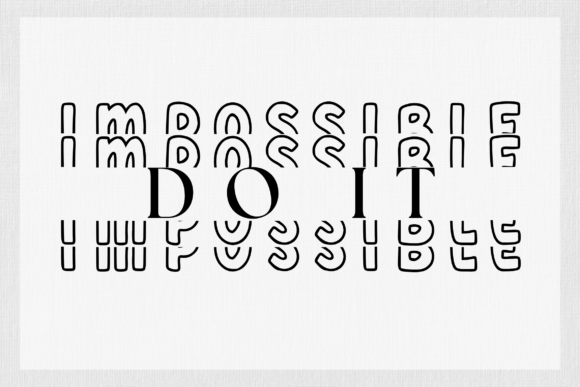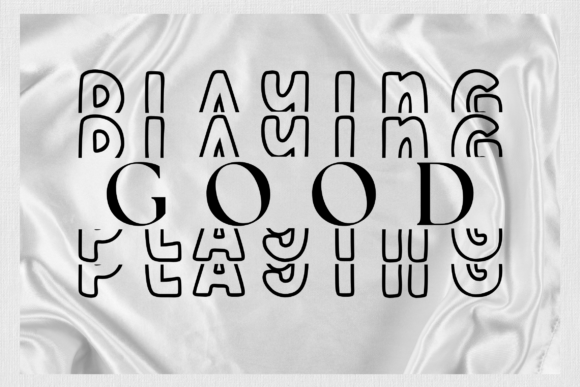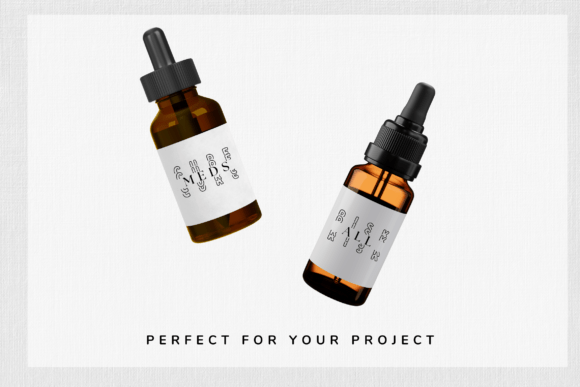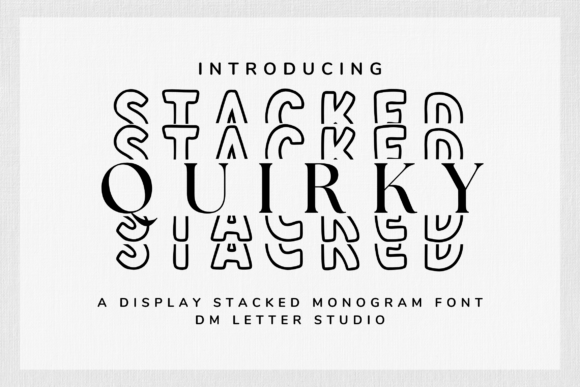
Introduction to Quirky Stacked Monogram Font
Quirky Stacked Monogram is a fun and modern monogram font with a stacked lettering style.
Its bold and whimsical character makes it perfect for playful branding, stationery, apparel design, kid-themed products, and personalized monograms The unique stacked layout adds a fresh and eye-catching twist to any design.
Key Features of Quirky Stacked Monogram Font
Why Choose Quirky Stacked Monogram Font?
Quirky Stacked Monogram Font offers exceptional quality and versatility, making it a valuable addition to your design toolkit. Whether you’re creating for personal projects or commercial use, Quirky Stacked Monogram Font delivers professional results.